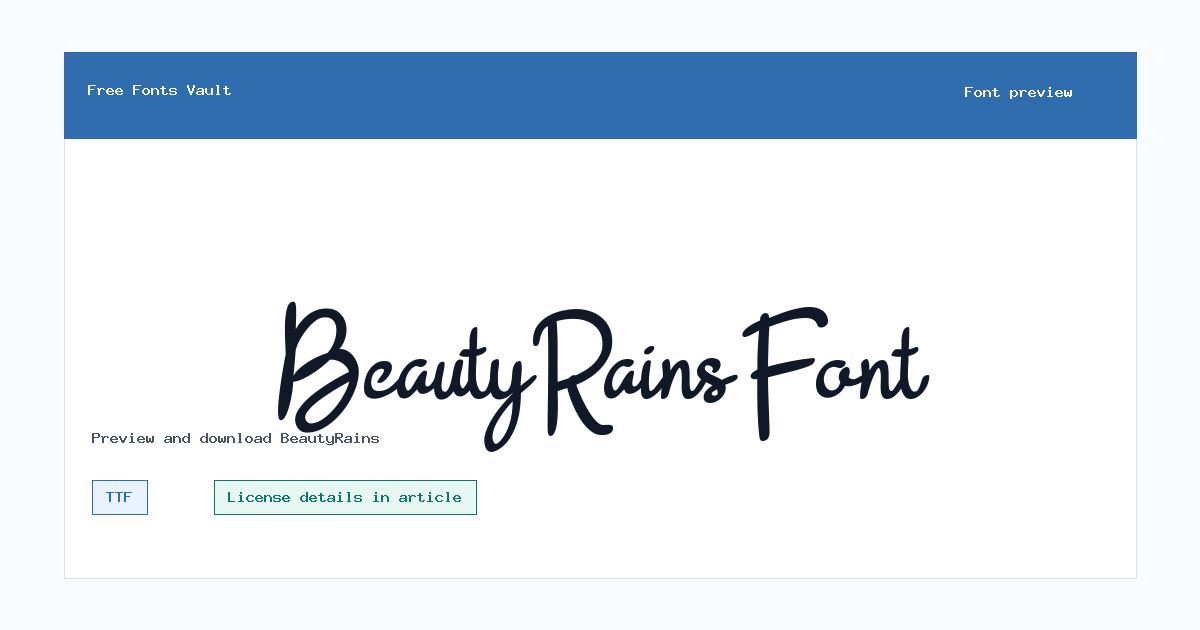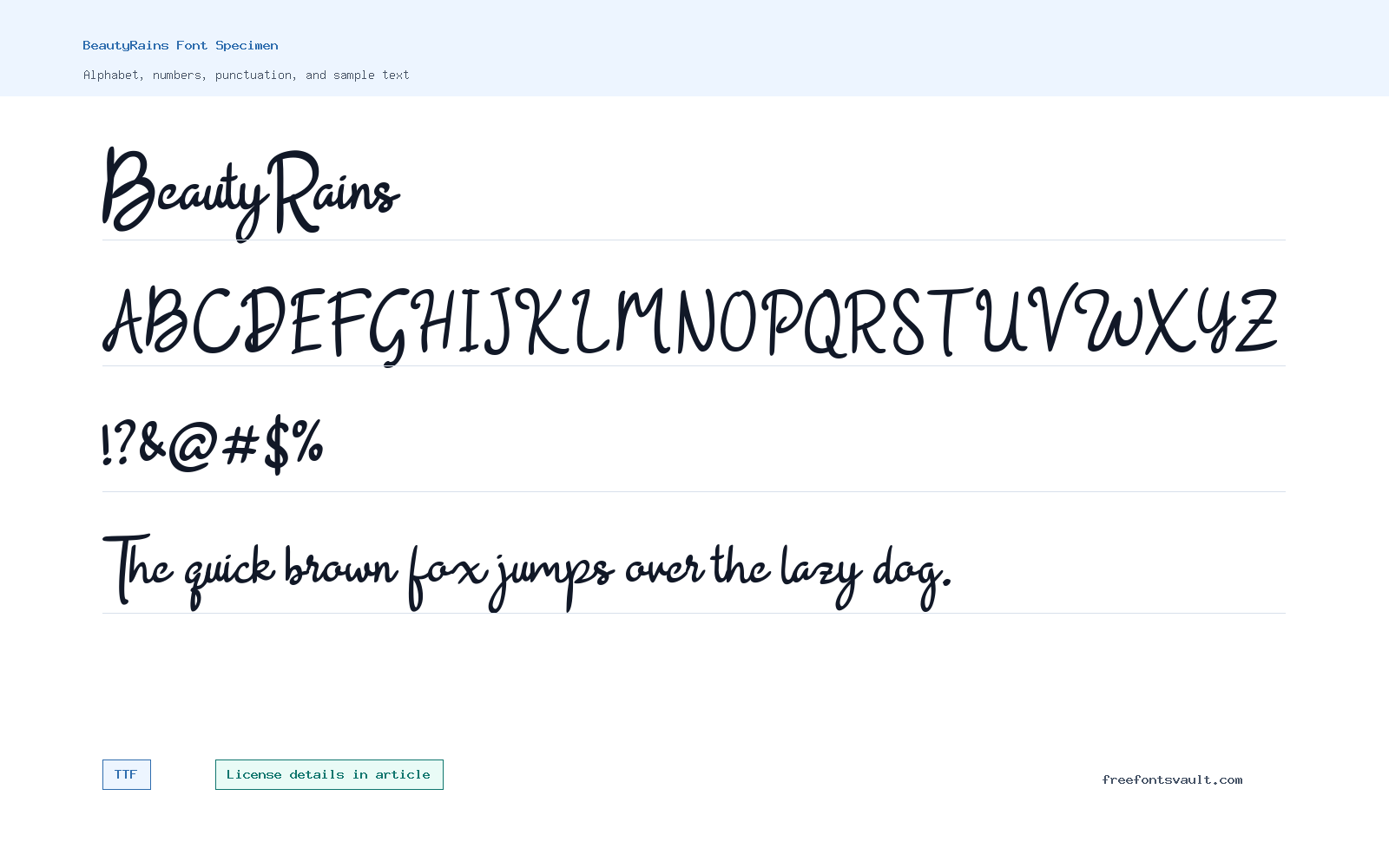
BeautyRains
- Designer Lukman Hidayat
- Foundry Viaction Type Co
BeautyRains is a handwritten script TTF by Lukman Hidayat of Viaction Type Co, made for short phrases that need a casual brush-lettered feel.
About BeautyRains Font
BeautyRains has the energy of hand lettering: lively strokes, tall capitals, connected lowercase forms, and a casual rhythm that works well when the text is allowed to breathe. It is a strong candidate for wedding headings, name marks, boutique labels, quote graphics, product mockups, greeting cards, and social media titles where a personal script accent fits the design.
BeautyRains should not carry long paragraphs, small captions, or dense menu text. Let it handle the emotional or decorative part of the layout, then pair it with a clean sans-serif or simple serif for addresses, descriptions, prices, dates, and body copy. This keeps the script readable and gives the design a more polished balance.
- Handwritten script style with connected lowercase forms
- Expressive capitals for names and short title lines
- Best used as a display accent, not paragraph text
- Wedding invitations, greeting cards, and romantic headings
- Logo concepts, boutique labels, and product mockups
- Quote graphics, social media titles, and name-based designs
- Craft packaging, stationery, and personal branding tests
- Short phrases where a brush-script mood is useful
- Pairing with a simple readable font for supporting information
What kind of font is BeautyRains?
BeautyRains is a handwritten script font with connected lowercase letters and expressive capitals.
Is BeautyRains good for body text?
It is best for short display text such as names, headings, cards, and logos. Use a simpler font for long reading.